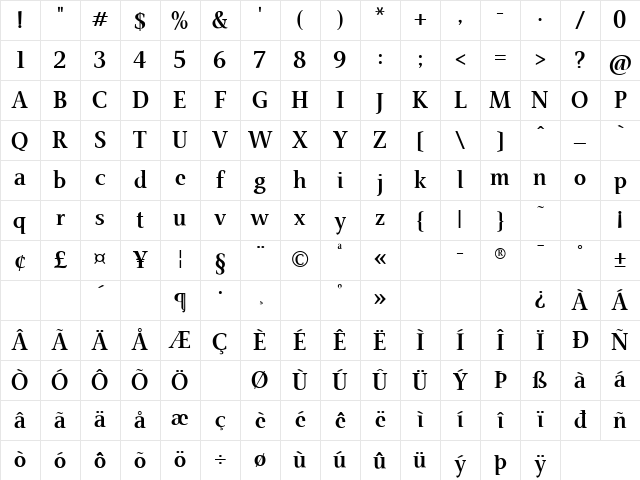
Complete AIVeritas Regular glyph index. Displaying only characters natively supported by AIVeritas Regular font.
AIVeritas is a composed and adaptable typeface that performs quietly and consistently across a wide range of design contexts.